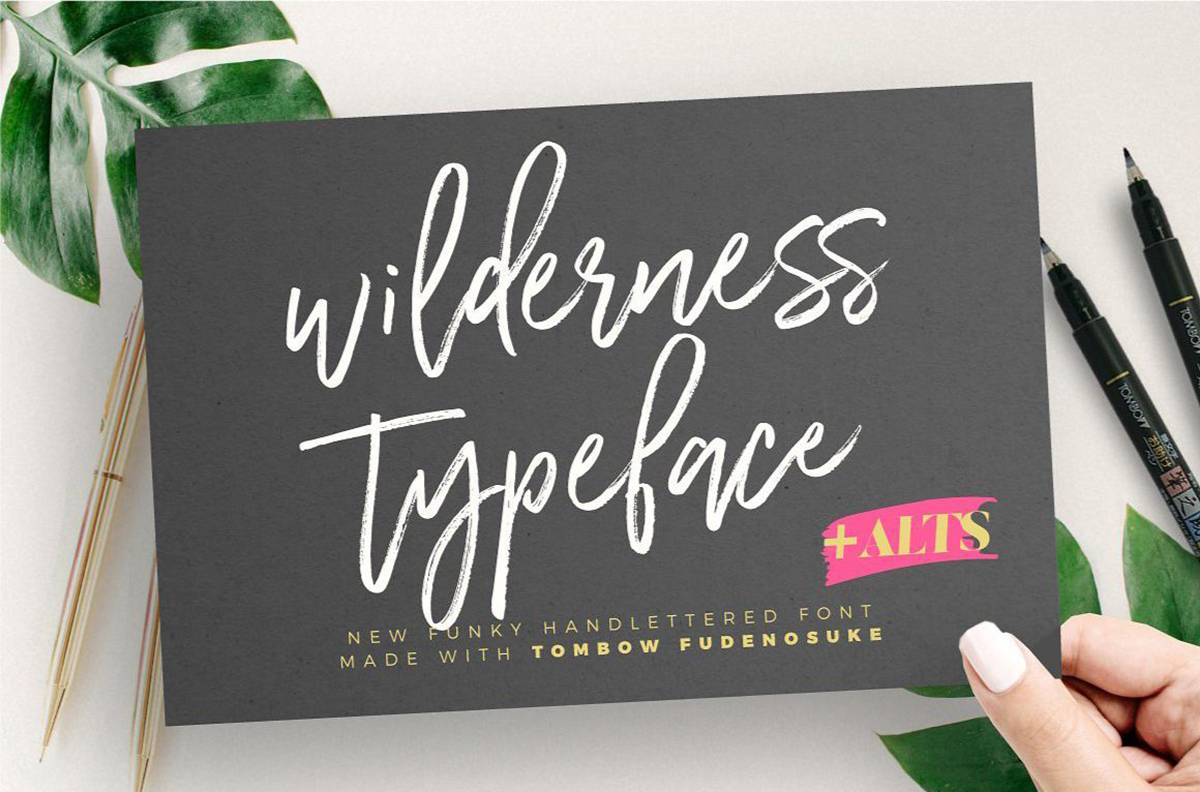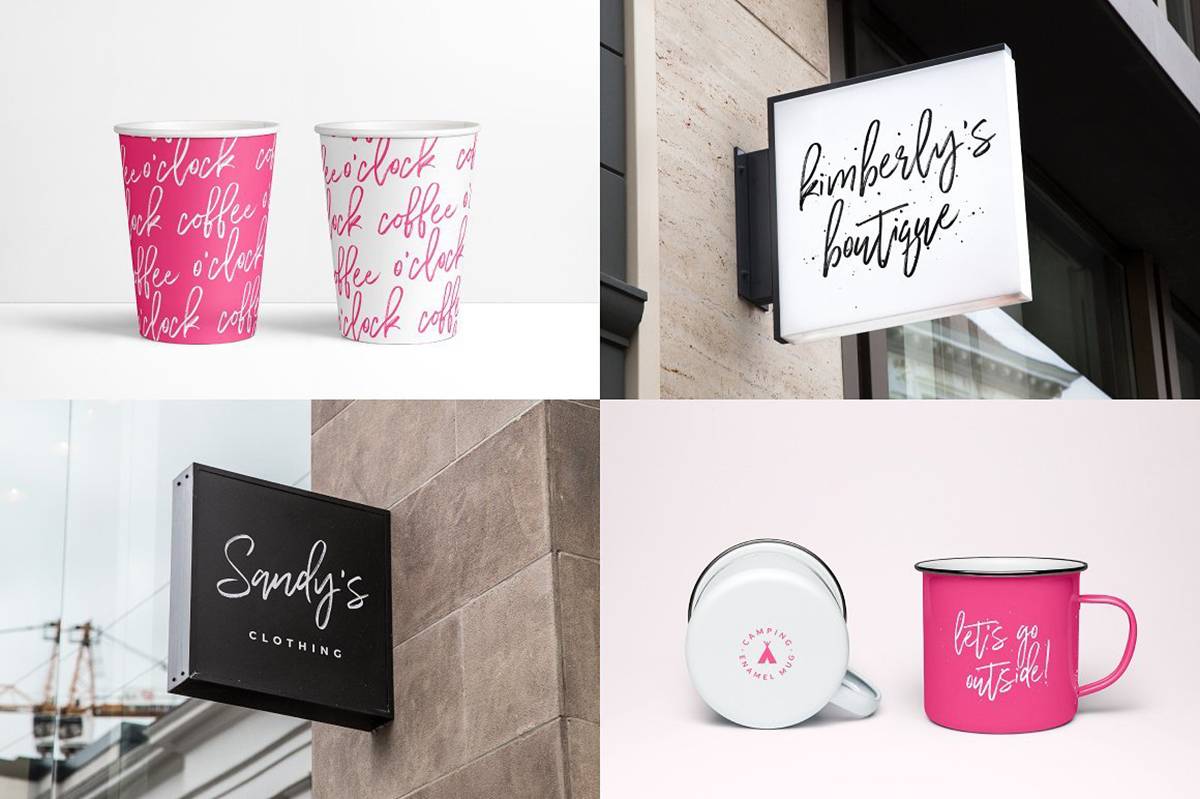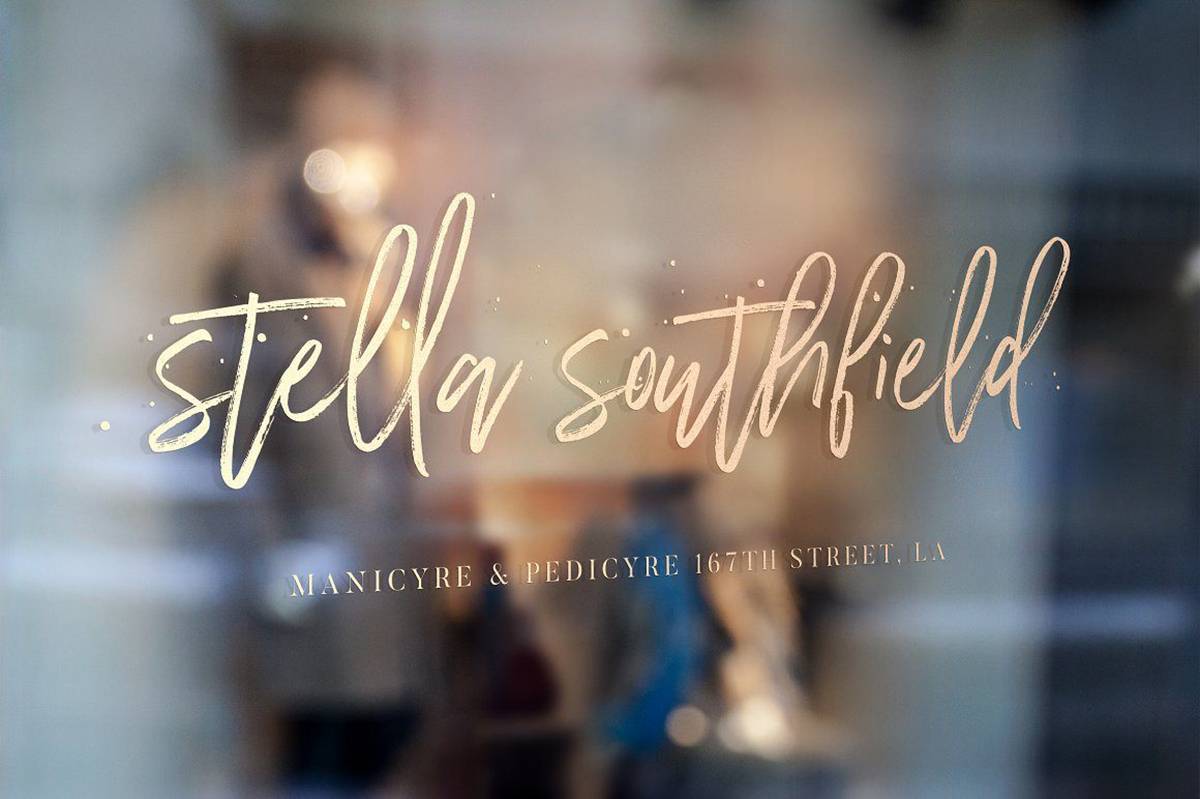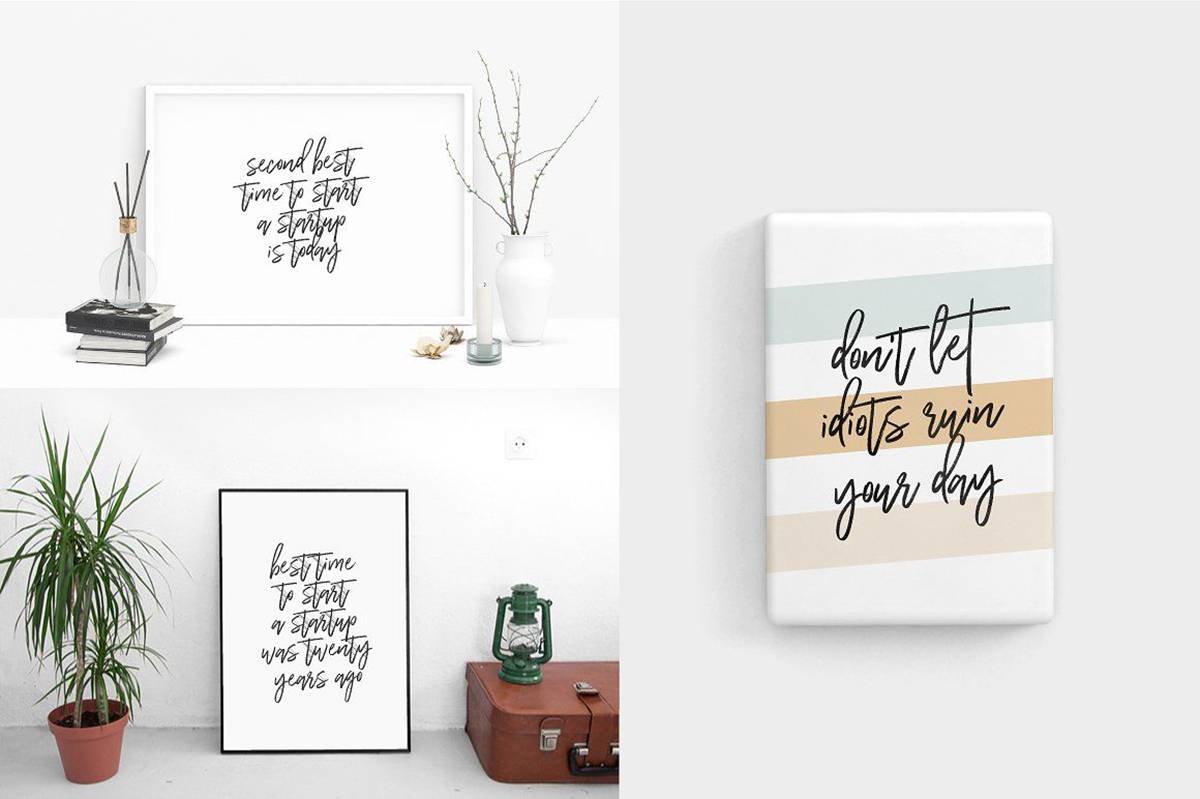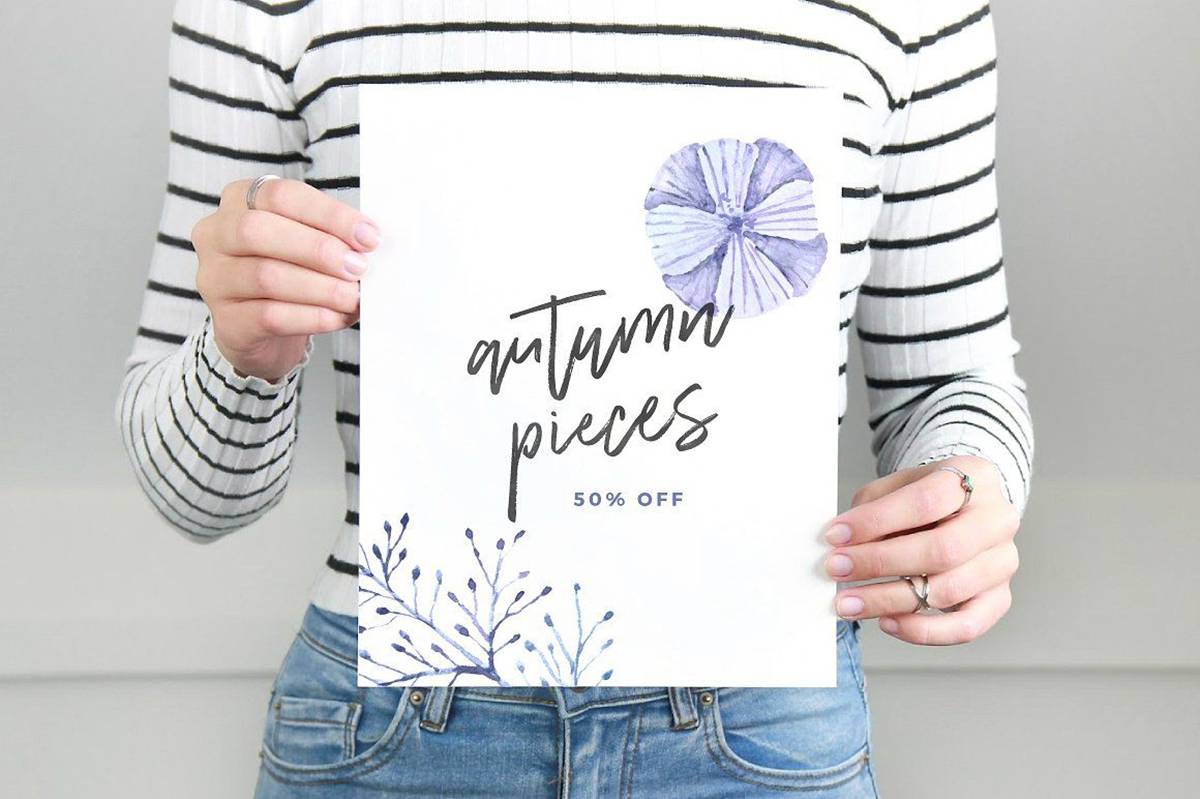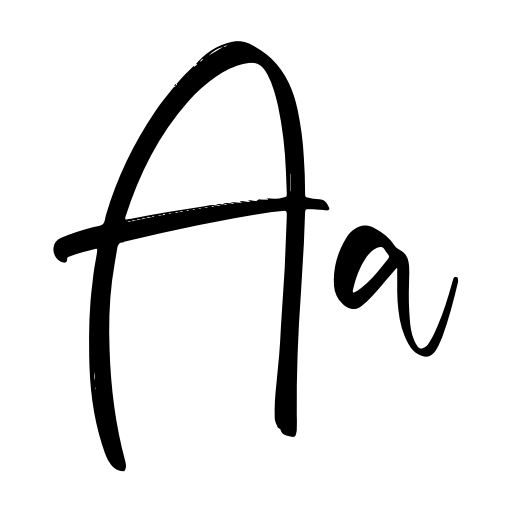
Wilderness Font is a delicate, handwritten script with tall, slender letterforms and a casual, flowing style that evokes a natural, artistic vibe. Its thin strokes and slightly textured appearance give it an organic, personal touch, making it perfect for creative projects, invitations, and branding that seeks an elegant yet approachable feel. This font works best in headlines or logos where a handcrafted, intimate impression is desired.
Wilderness Font
About Wilderness Font
| Designer | Mats-Peter Forss | WornOutMedia |